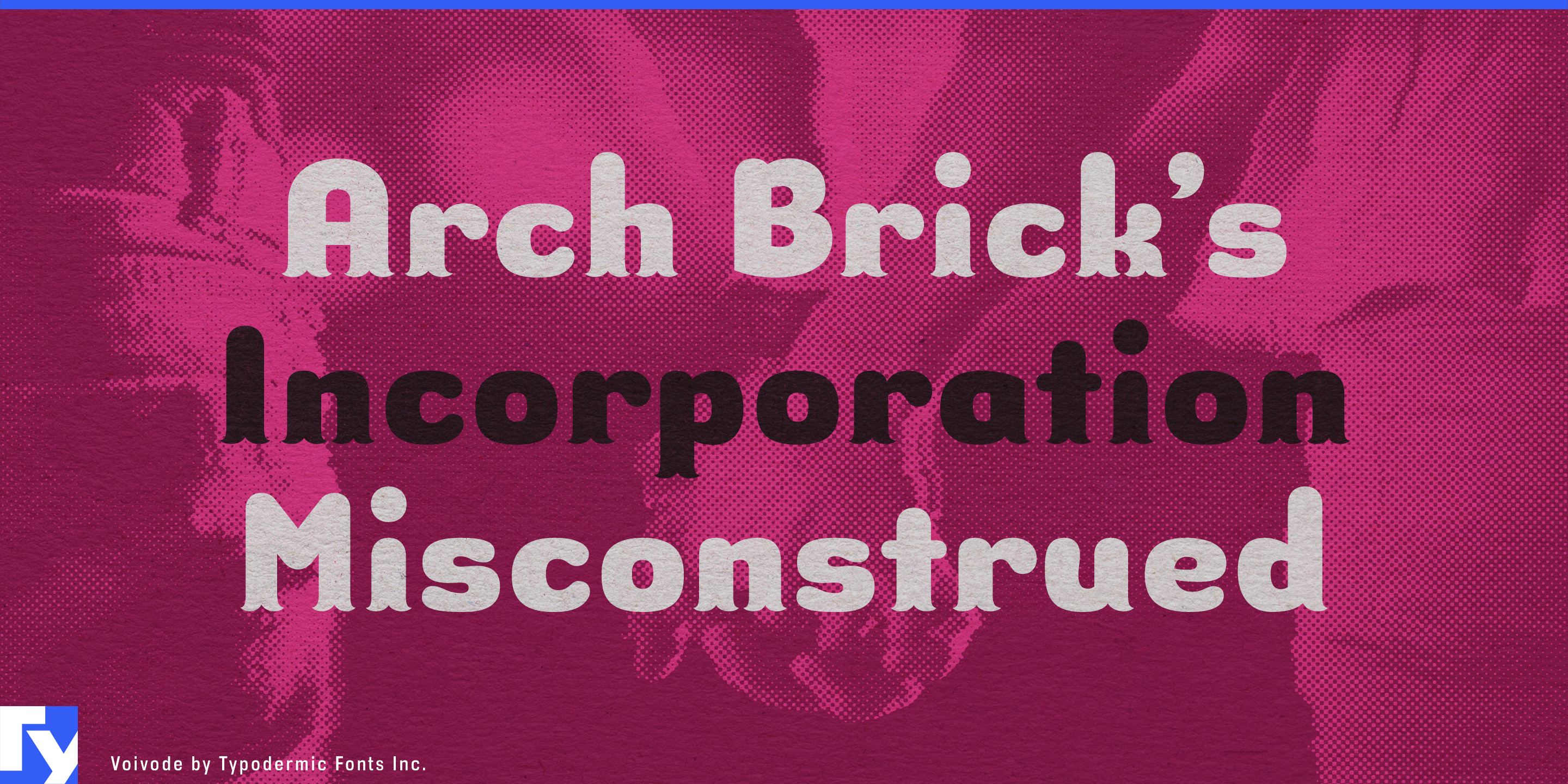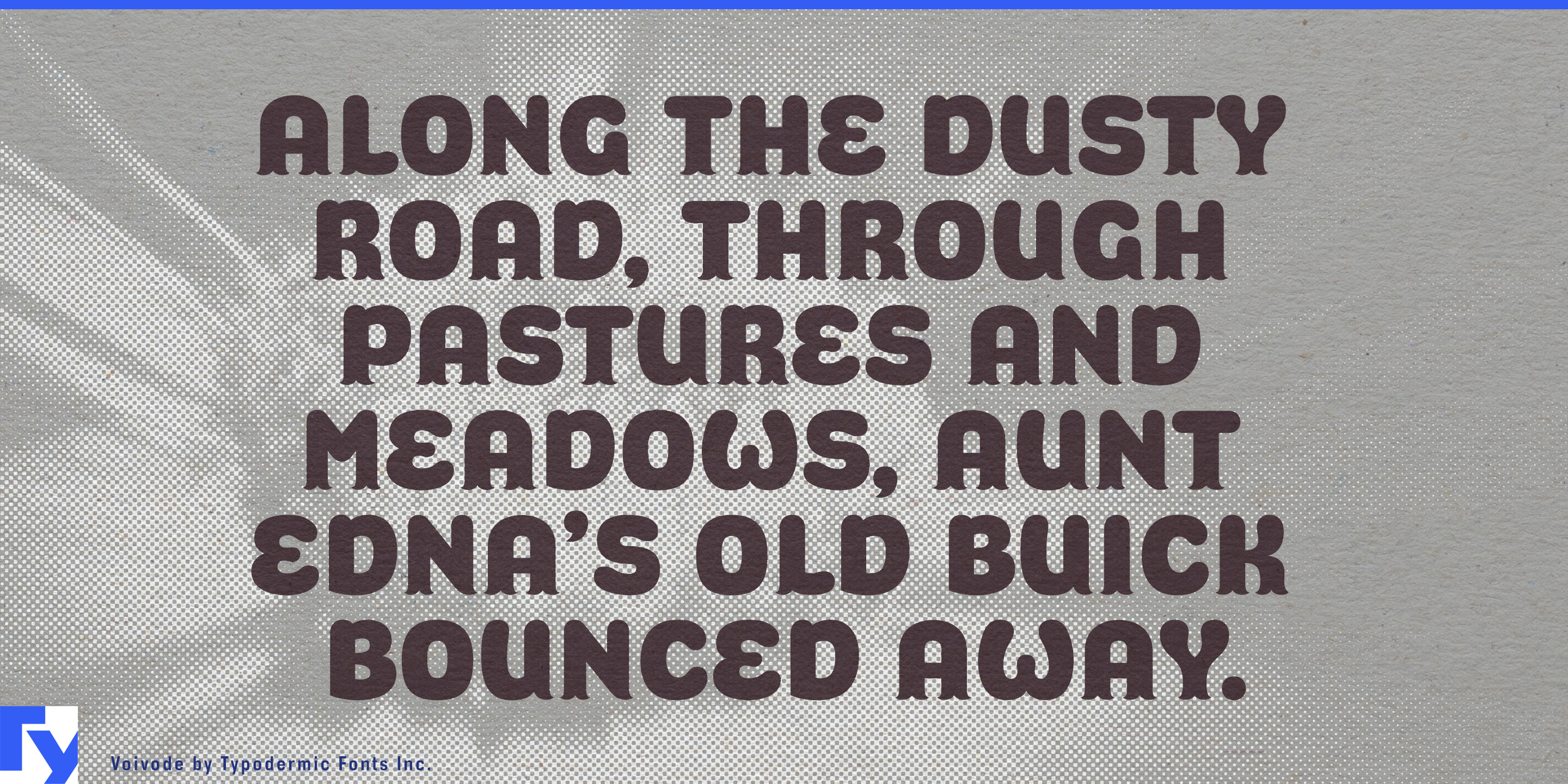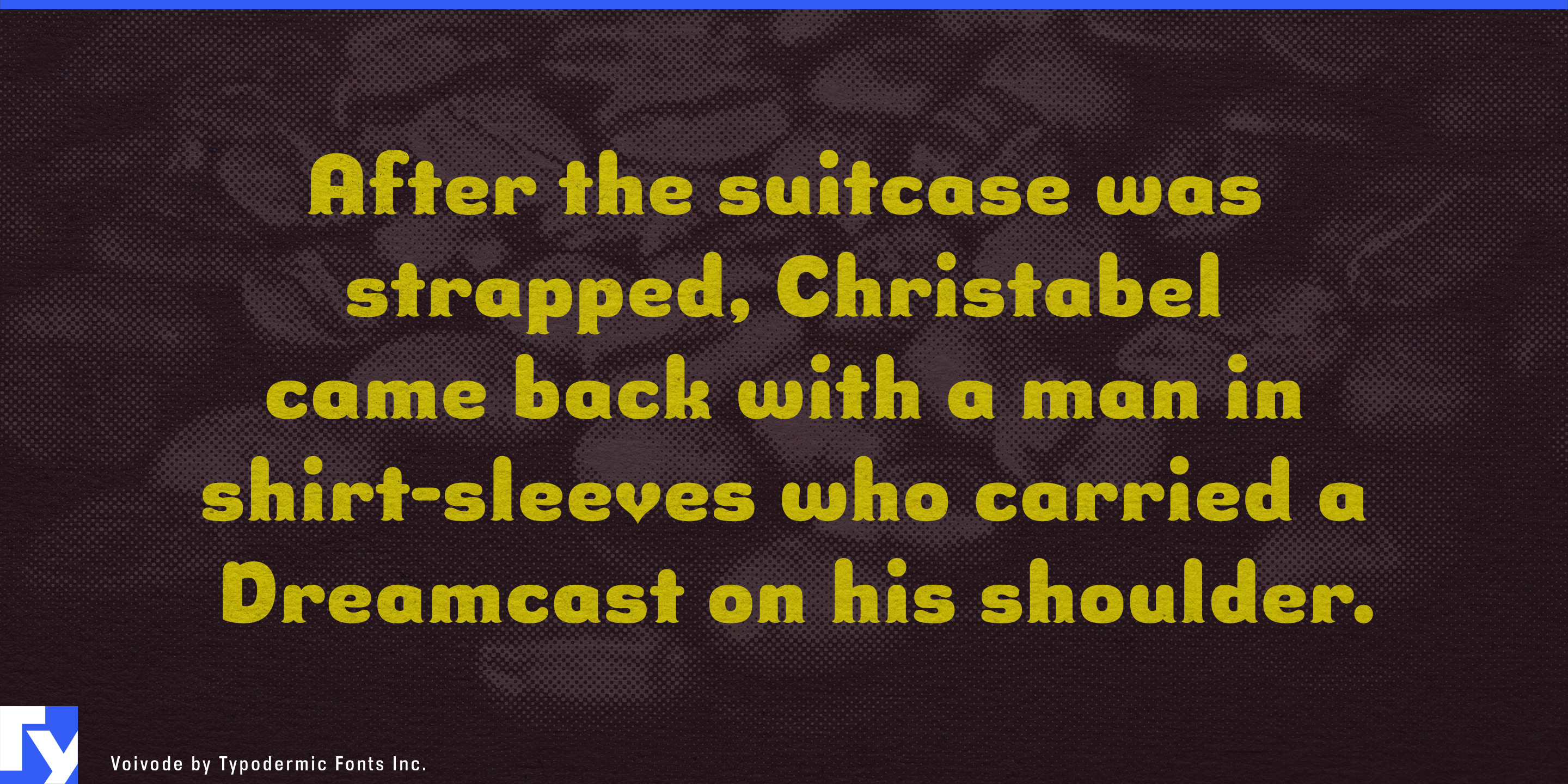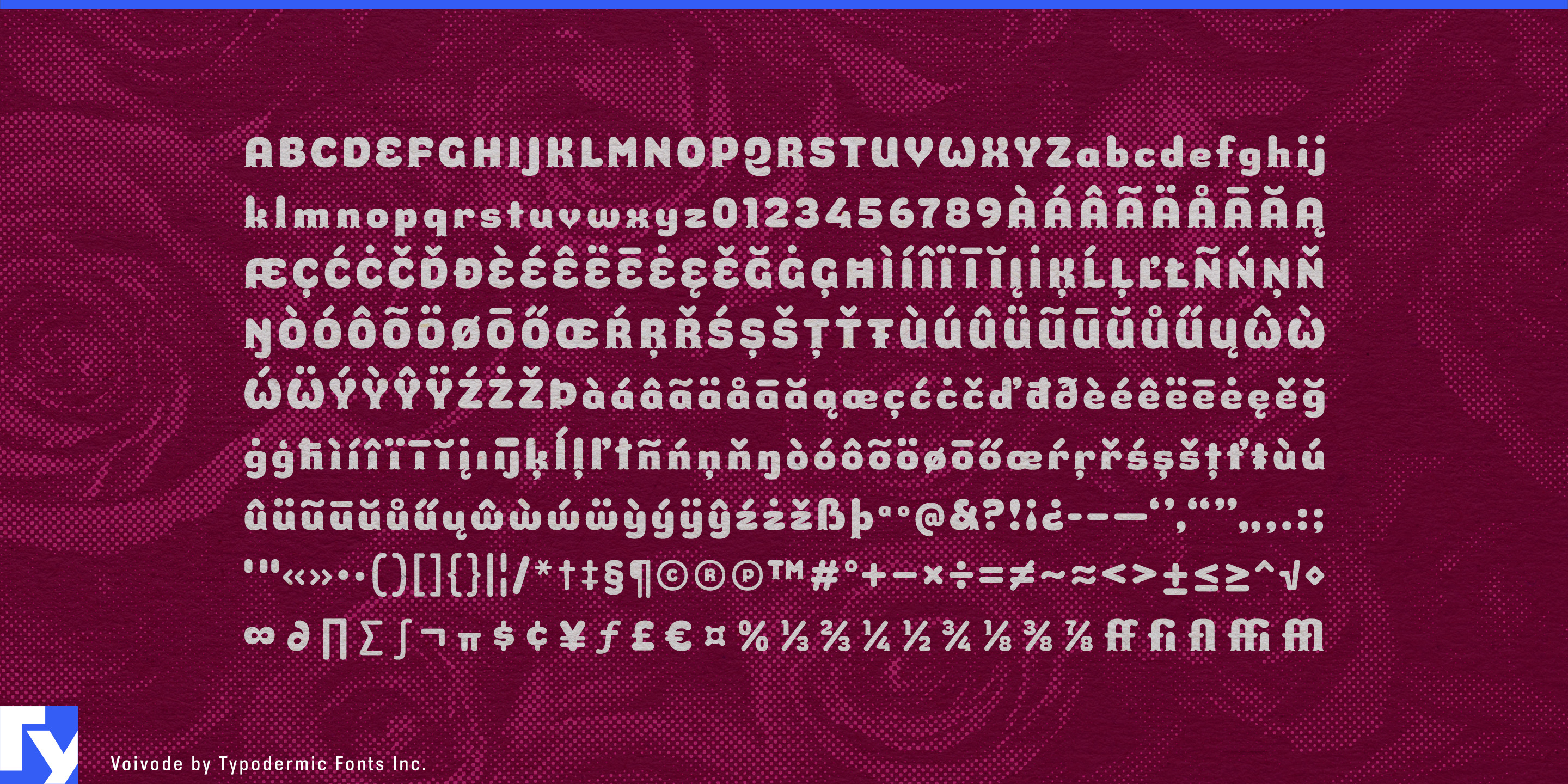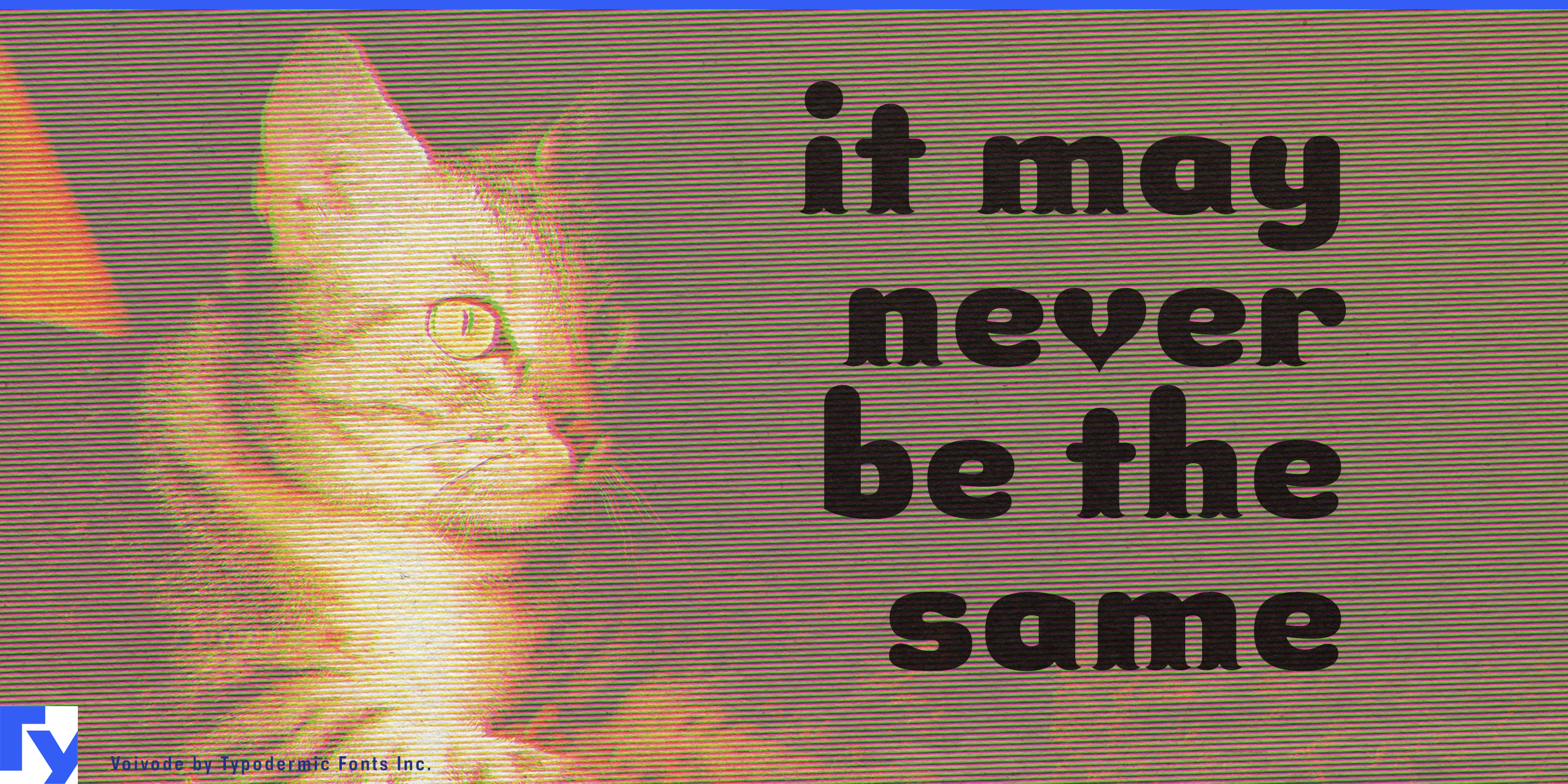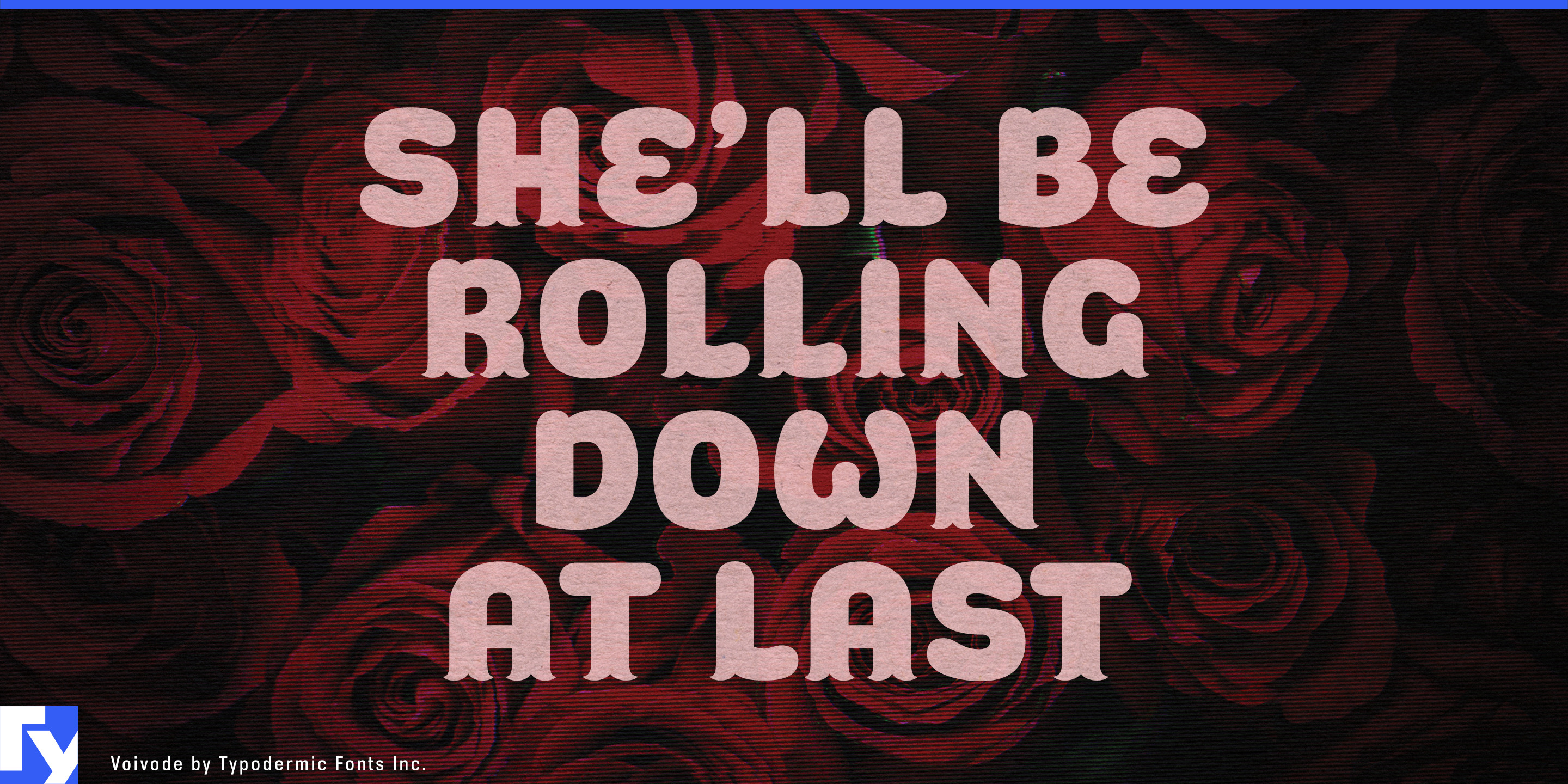
Voivode
Voivode is for brands that want Y2K optimism without Y2K aggression.
Its rounded geometric forms belong to the softer side of the early digital future: colorful plastic, translucent gadgets, glossy magazine graphics and consumer technology designed to feel fun rather than ominous. Fish-tail terminals interrupt the geometry with odd ornamental flicks, keeping Voivode from becoming another generic bubble font.
That makes it particularly useful for cute technology and gadget accessories. Phone cases, earbud cases, portable speakers, colorful power banks, gaming accessories and digital-camera add-ons often need packaging and campaign graphics that feel technological without resorting to chrome lettering, cyber-goth styling or angular sci-fi type. Voivode can carry collection names, product families, launch graphics and retail displays with enough synthetic structure to belong beside molded plastic and glossy hardware while still feeling playful.
Beauty offers a similar fit. Lip products, nail color, body sprays, hair accessories, glitter cosmetics and limited-edition youth collections can use Voivode for collection titles, shade campaigns, counter displays and collaboration packaging. Its rounded construction works naturally with translucent caps, jelly finishes and candy-colored plastics, while the terminal details keep the lettering from becoming blandly cute.
Y2K fashion accessories create another strong territory. Sunglasses capsules, novelty bags, jewelry collections, platform footwear and early-2000s-inspired collaborations can use Voivode when the goal is bright, poppy nostalgia rather than trash-glam rebellion. Football-inspired streetwear, retro warm-up capsules and sneaker collaborations can borrow the same language for collection names and campaign graphics.
Character-led products such as virtual-pet merchandise, fashion-doll collaborations, cosmetic characters, gadget charms and collectible accessories fit the same cultural memory. Voivode can make a new product feel as though it escaped from an electronic toy aisle around the turn of the millennium without relying on literal pixel graphics.
Voivode does not recreate the year 2000 exactly. It recovers the future that period imagined: rounded, colorful, slightly strange and convinced that technology was going to be fun.